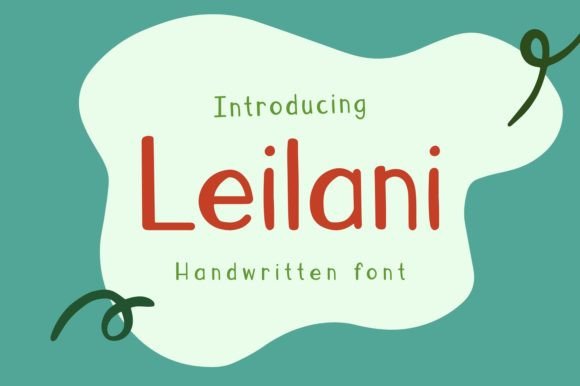
Step into the realm of enchanting typography with Leilani Font, a charming handwritten font that captivates hearts with its endearing elegance. A creation of the brilliant Brown Cupple Fonts, Leilani embodies the essence of playfulness and authenticity, making it the perfect companion for your creative endeavors.
With its delicate strokes and airy characters, Leilani brings a touch of whimsy and warmth to every design. Its versatility shines through in a myriad of projects, from the charm of blog posts to the boldness of logos, from the allure of branding to the impact of advertisements. Unleash your creativity and witness the magic of Leilani transform your designs into captivating masterpieces.
Picture the allure of Leilani gracing your invitations, greeting cards, and planners, adding a personal touch that resonates with your audience. Its playful nature lends itself beautifully to photo albums and decorations, evoking cherished memories and heartfelt emotions. Embrace the endless possibilities and let Leilani elevate your designs to new heights of artistry.
As a font crafted with meticulous attention to detail, Leilani offers a delightful user experience. Its smooth flow and effortless compatibility ensure seamless integration into your design projects. Let your imagination soar and explore the boundless creative possibilities that await you with Leilani Font at your fingertips.